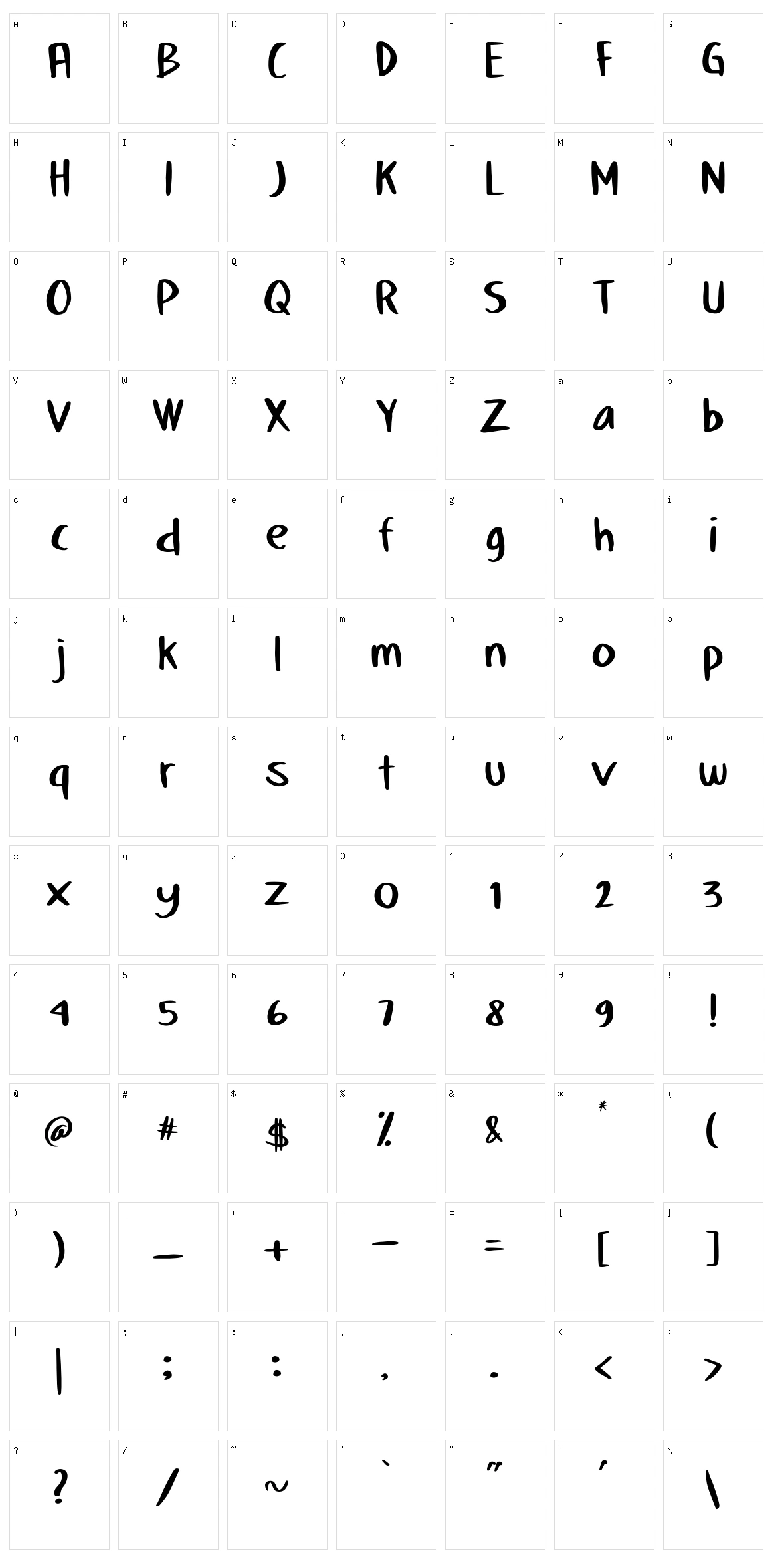
The free font The Beelly is carefully designed by Scratch Design, showcasing a thoughtful balance of creativity and usability and falls under the Script font style. When you download the ZIP file, it contains only 1098.58 KB of font files, making it lightweight and quick to download. Please review the license details below to understand permitted usage and distribution rights. If license information is not available, we recommend using this font for personal projects only or contacting the author directly for commercial usage permissions.